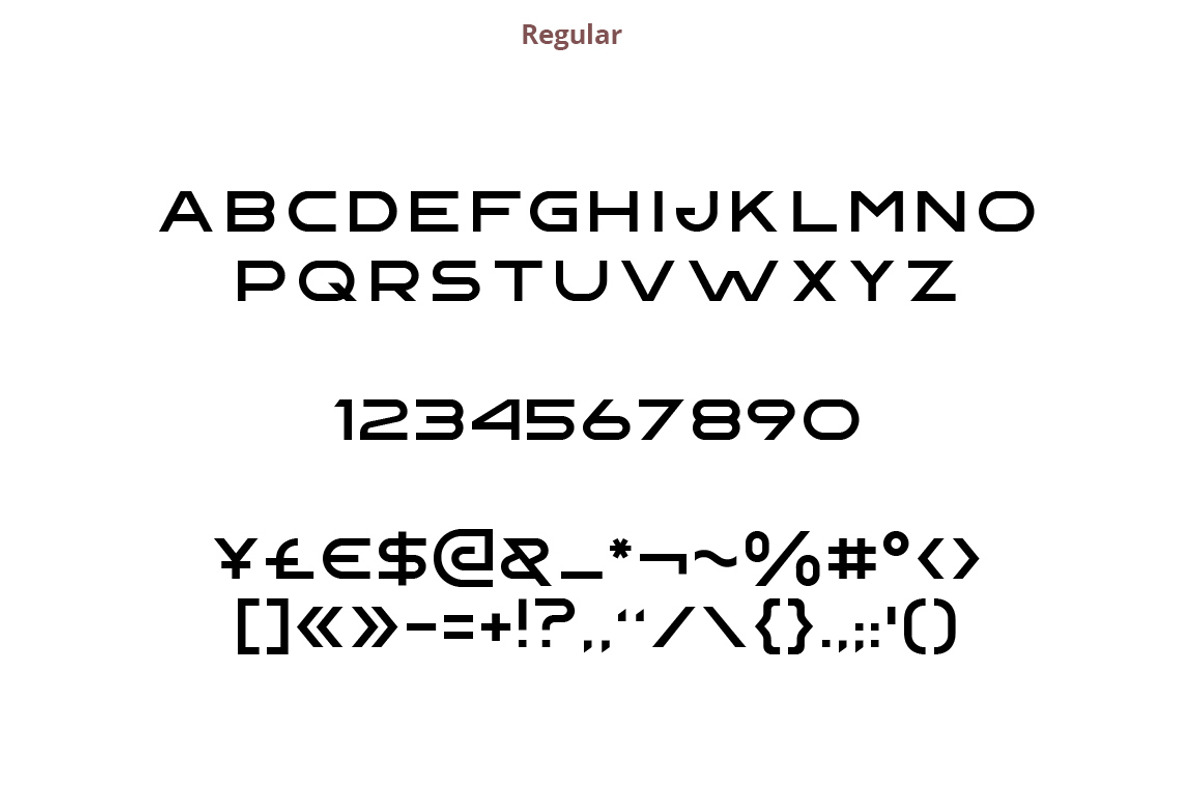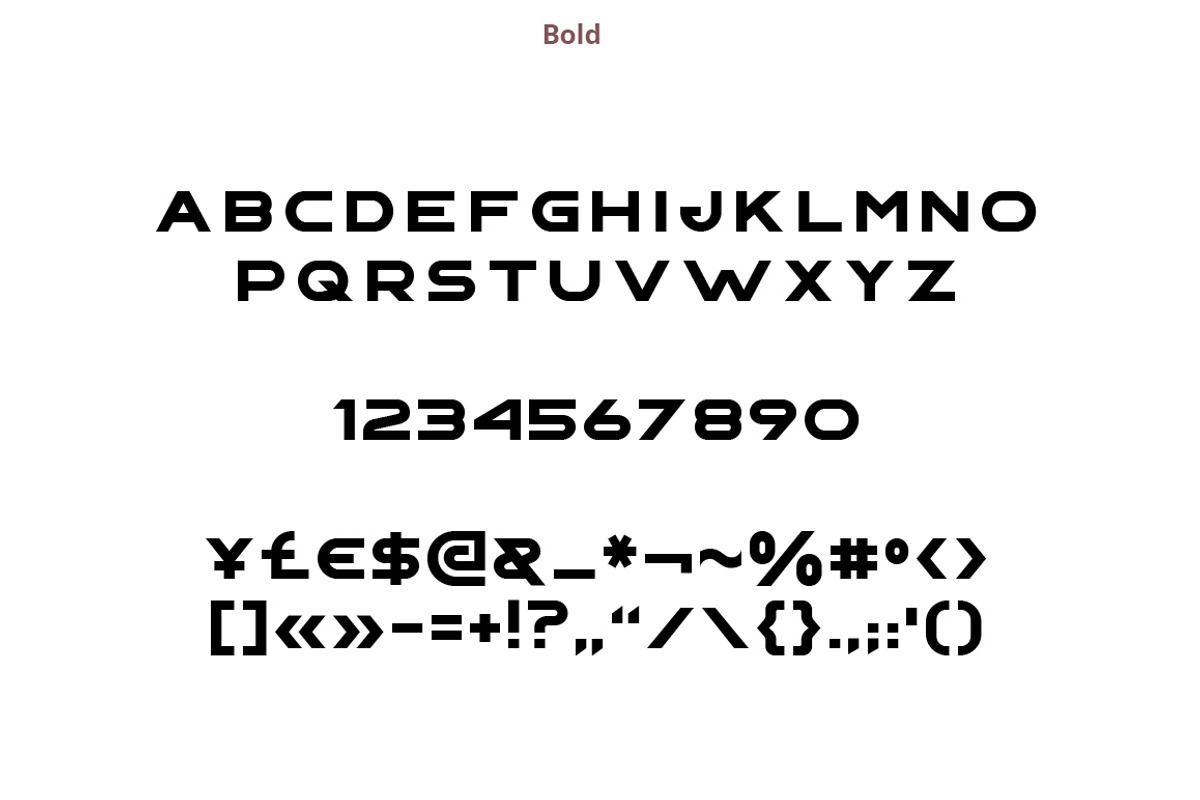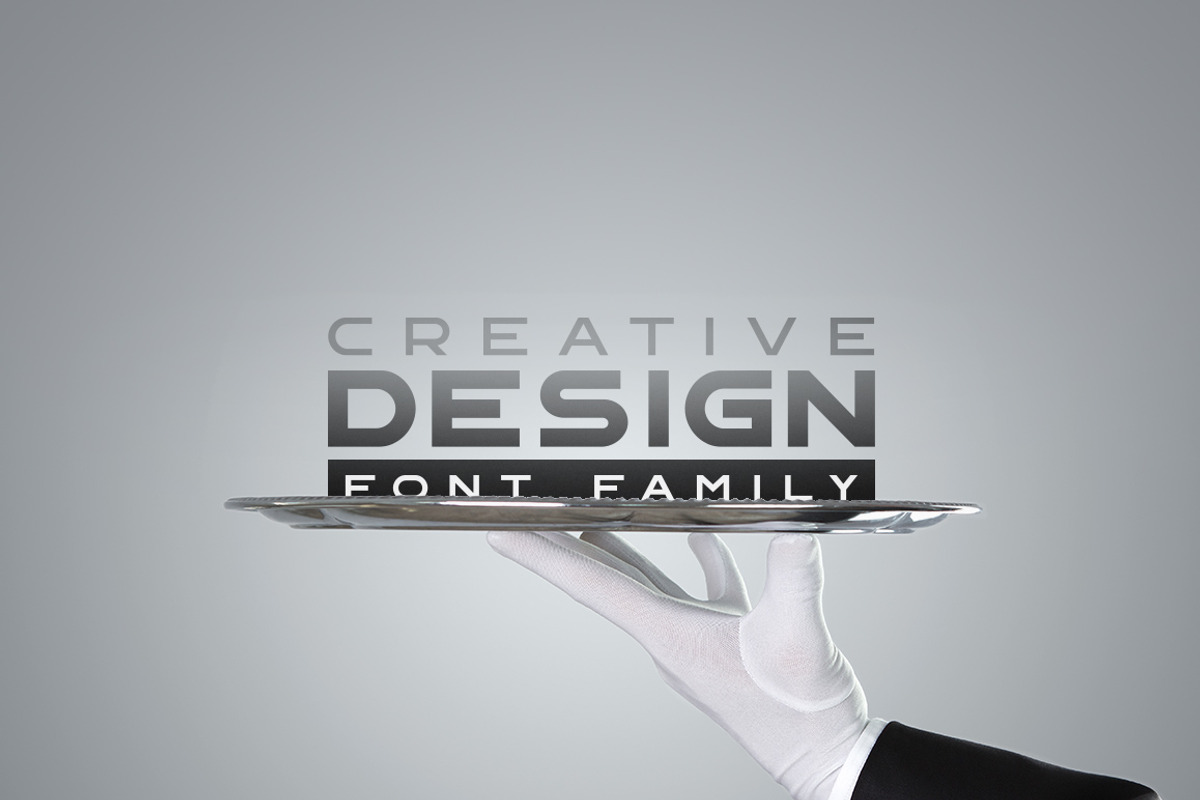
Gempire Font Family
Gempire Font Family by Sentavio is a font selected for branding, posters, packaging, typography.
- Gempire Regular
- Gempire Medium
- Gempire Bold
Why Gempire Font Family is worth a look
Gempire Font Family by Sentavio fits naturally into Branding, posters, packaging, typography.